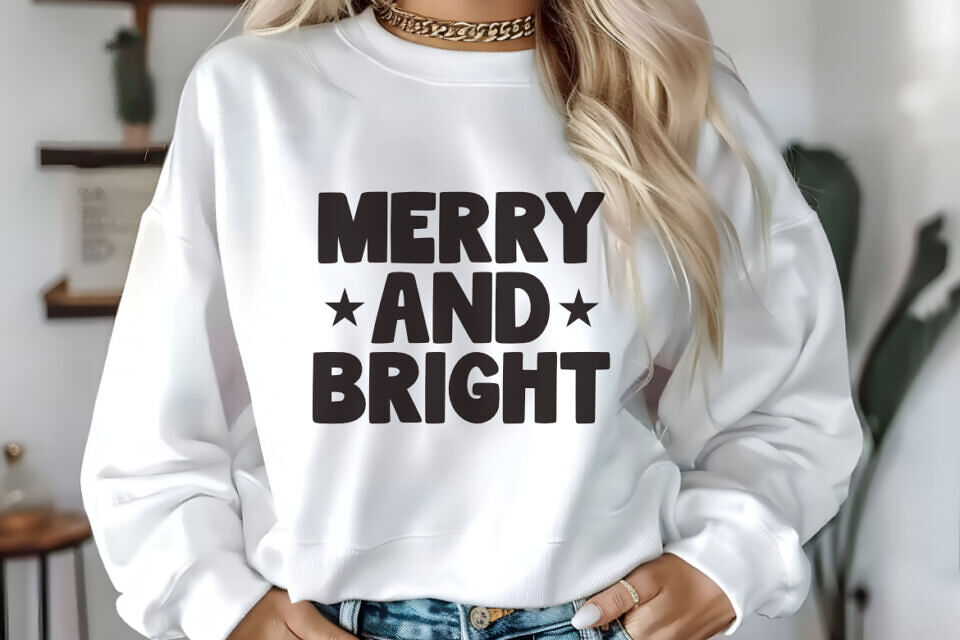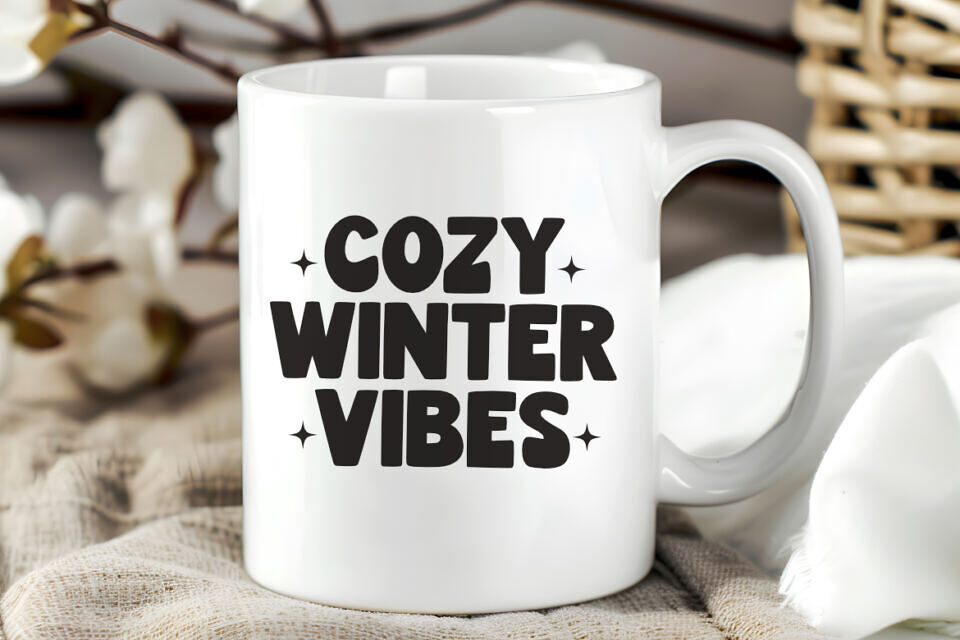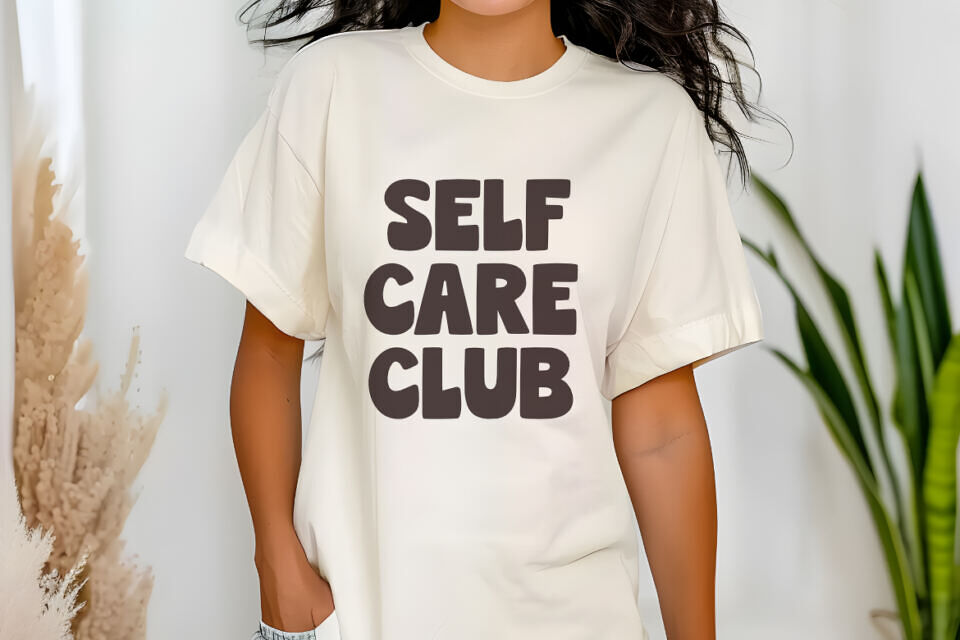
Wonderful Snowflake is a funky, playful, and chunky display font inspired by the cozy, vibrant, and festive energy of a retro Christmas. With its thick, rounded curves and cheerful personality, it captures the nostalgia of vintage holiday illustrations and seasonal cheer.
Perfect for: crafting SVG designs, holiday t-shirts, festive mug designs, Christmas pajama prints, winter-themed banners, greeting cards, sublimation projects, personalized ornaments, playful branding for holiday pop-up shops, and children’s winter apparel.